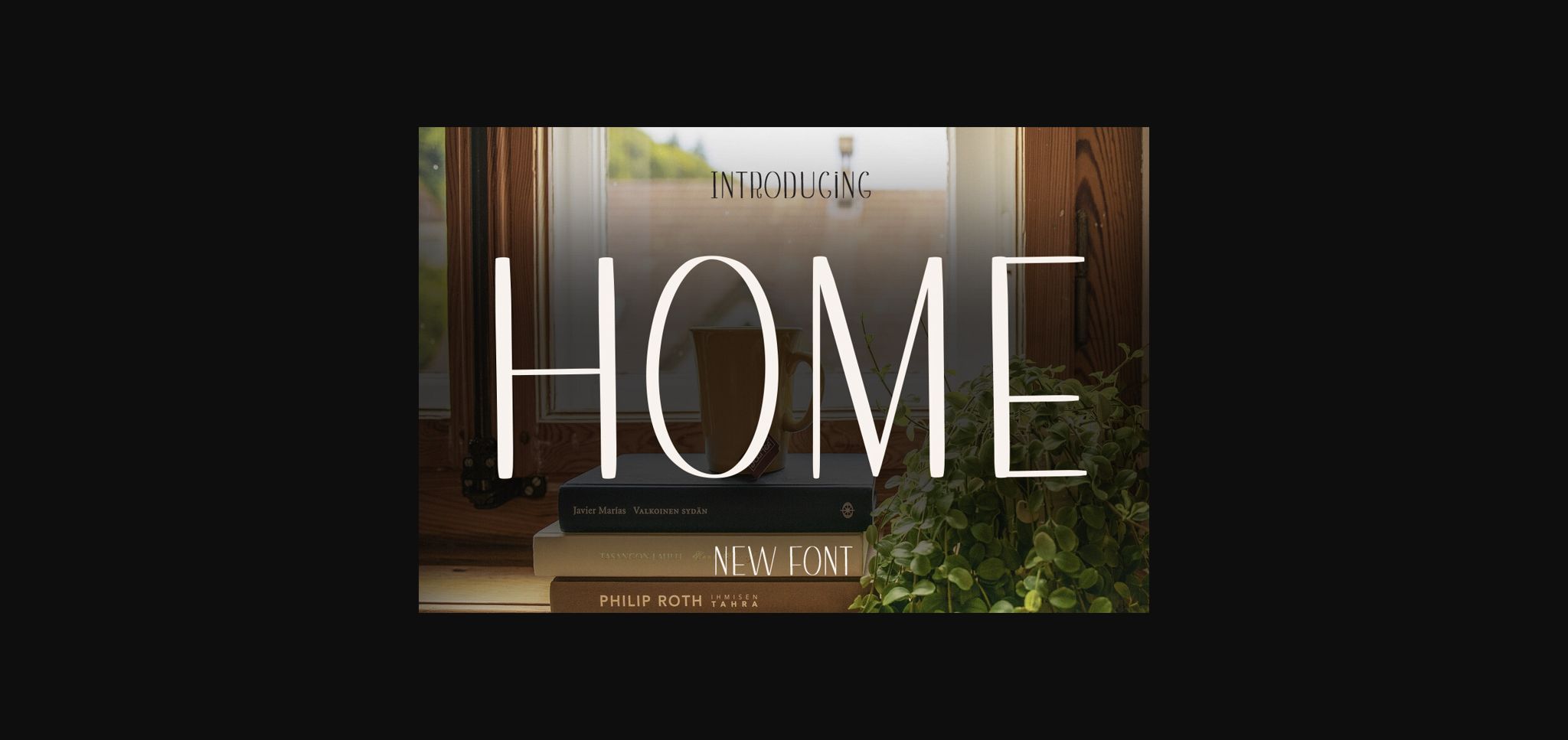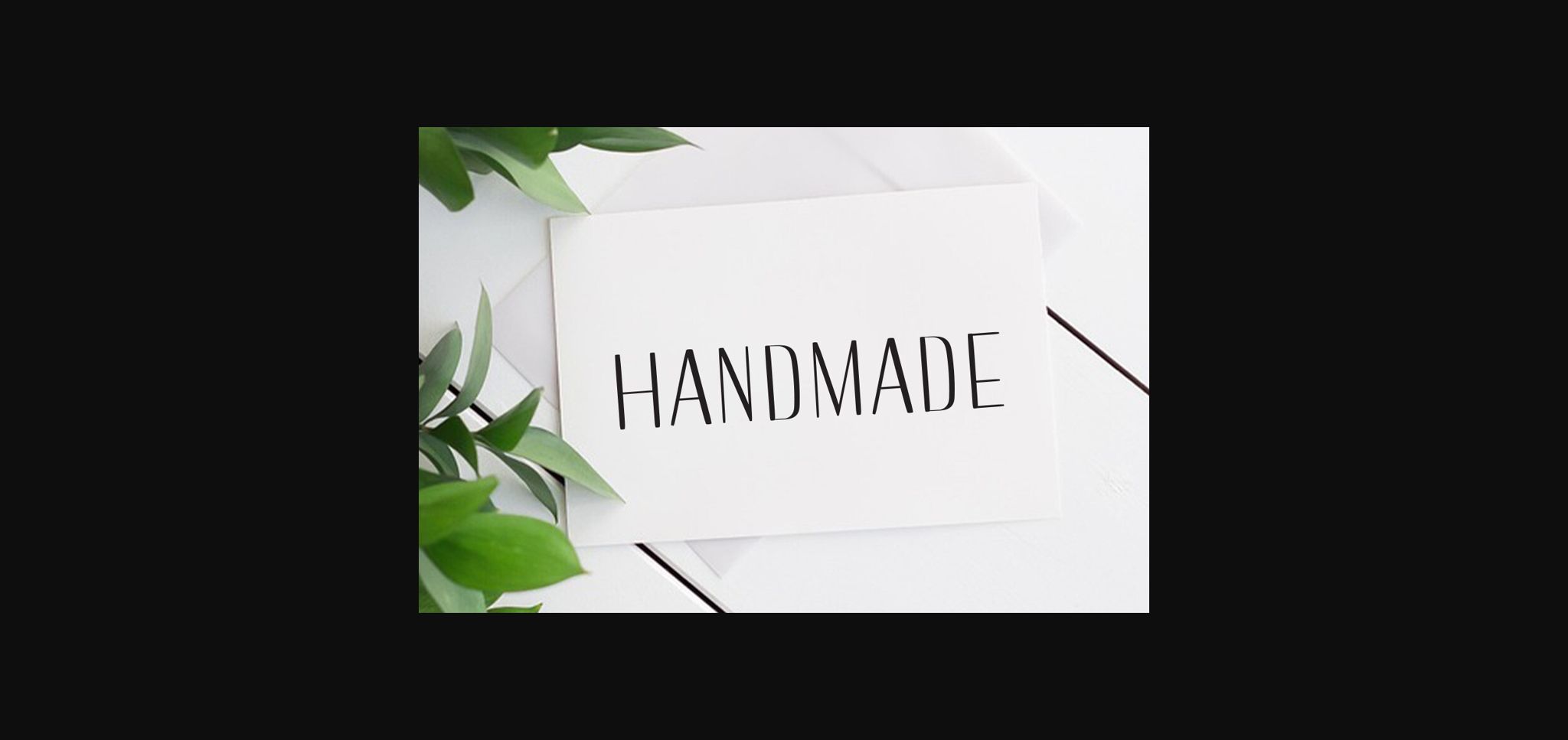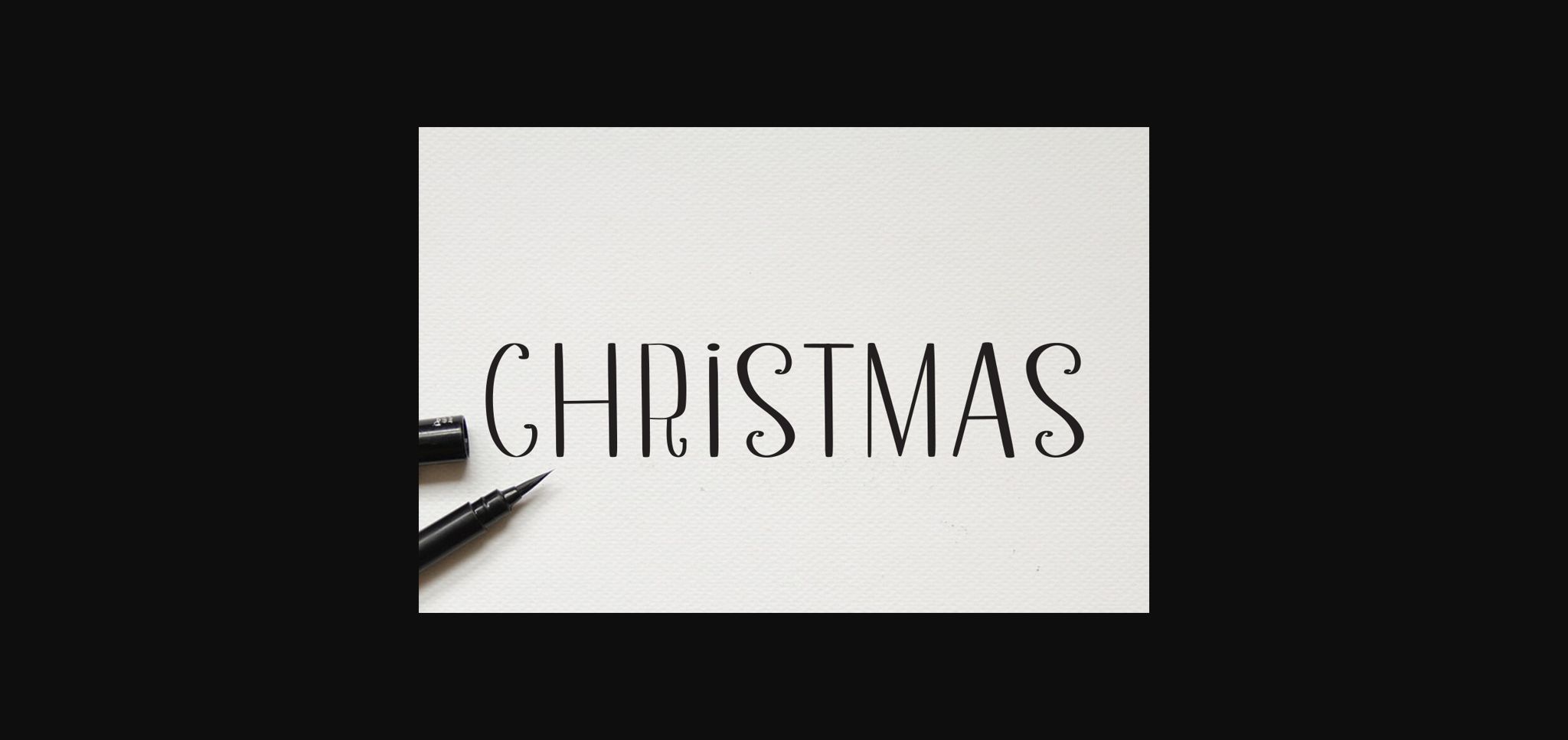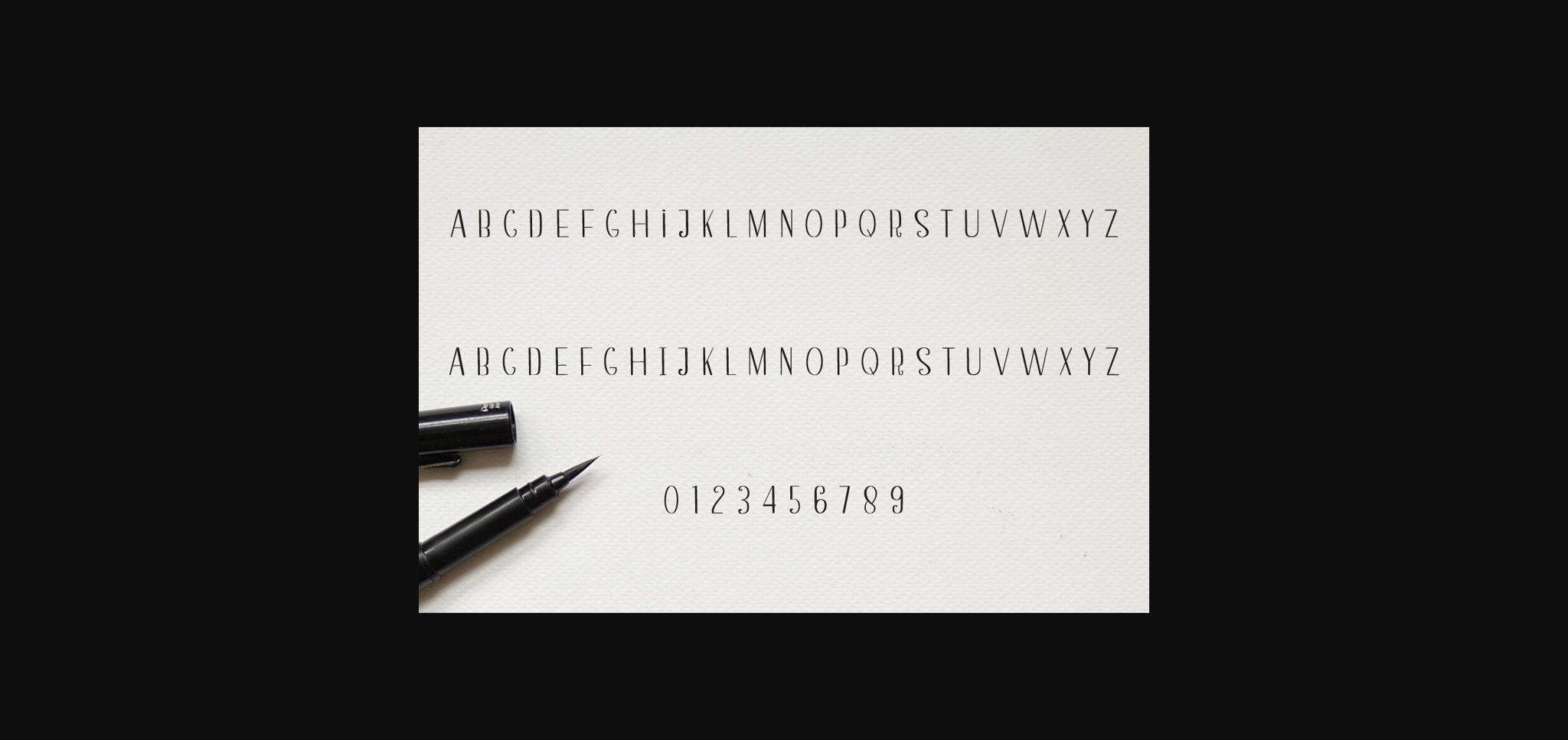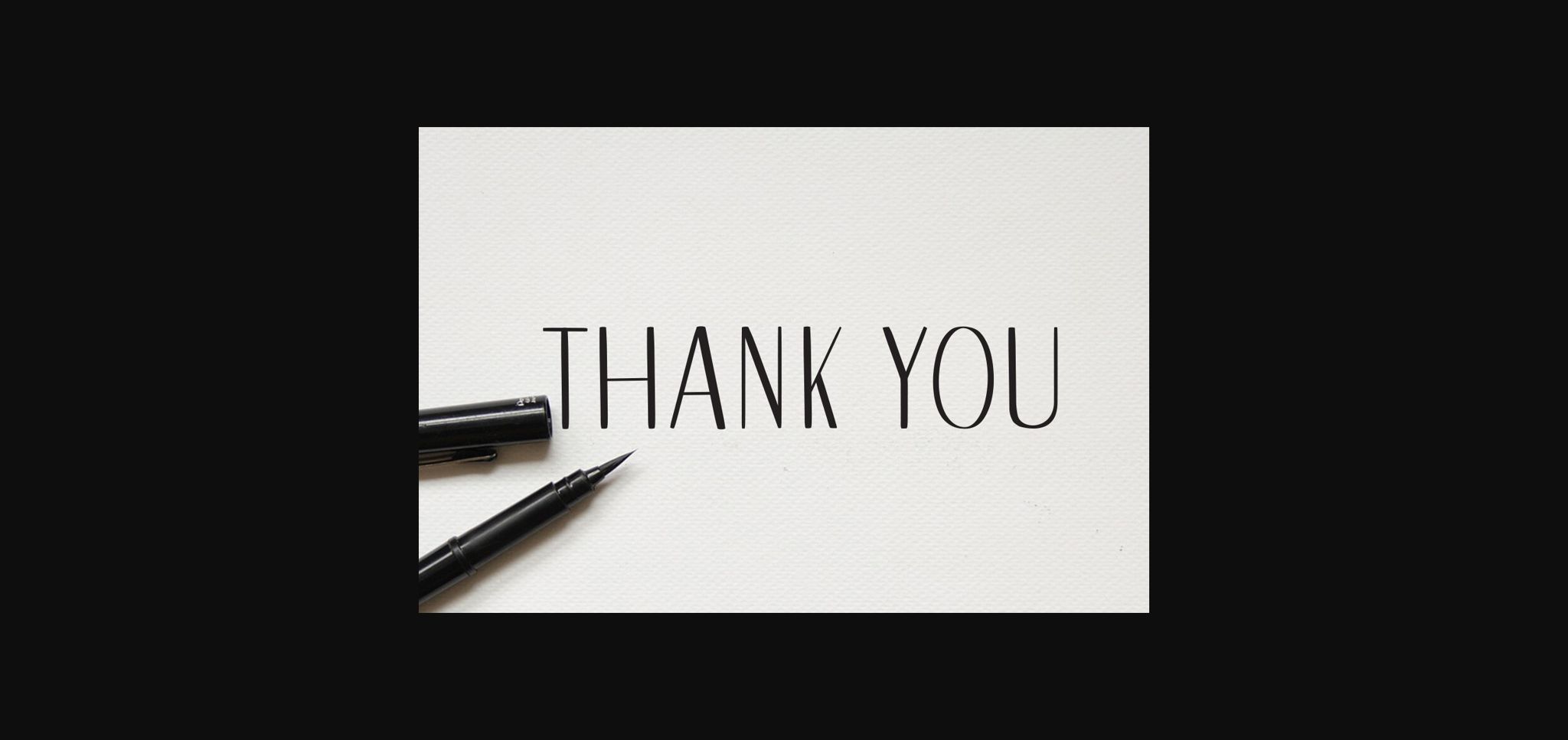
HomeSans Serif FontsHome Font Sans Serif Fonts Home Font FacebookXPinterestWhatsApp 1 of 7 ... Home Font Poster 2... Home Font Poster 3... Home Font Poster 4... Home Font Poster 5... Home Font Poster 6... Home Font Poster 7... About Home Font Home is a sweet and cursive sans-serif font. This gentle font will look gorgeous on a variety of design ideas. It will add a joyful and romantic touch to each of your projects! DOWNLOAD NOW People also explored Fturism Font Supra Demiserif Font The Sons Font Really Cute Font Amillina Monogram Adelline Font Gio Fly High Font Family Font 264 0 TagsHomeHome Font Previous articleGrachy Berry FontNext articlePeople Font LEAVE A REPLY Cancel reply Comment: Please enter your comment! Name:* Please enter your name here Email:* You have entered an incorrect email address! Please enter your email address here Website: Save my name, email, and website in this browser for the next time I comment. Personal Use Free Malinda Personal Use Free Read more about this font Bahjera Personal Use Free Read more about this font Mellow Personal Use Free Read more about this font Lovetle Personal Use Free Read more about this font BLOG Using Fonts in Digital Marketing: Tips to Strengthen Your Brand Identity In the realm of digital marketing, every visual element plays a crucial role in shaping a brand's identity, and fonts are no exception. The... Modern Sans-Serif Fonts That Brands Love in 2025 How to Cut Any Font on Cricut: Convert a Font to SVG (Free) Elegant Wedding Invitation Fonts – Handwritten & Script Fonts